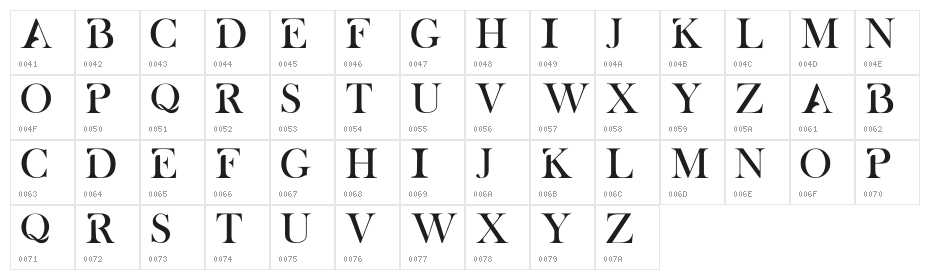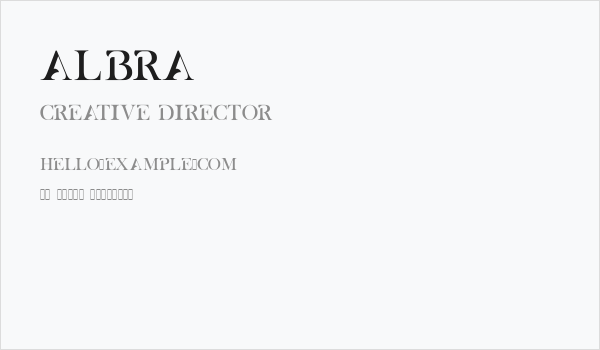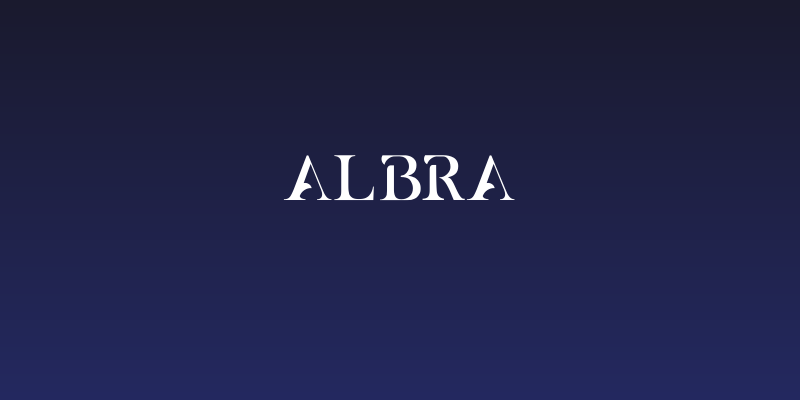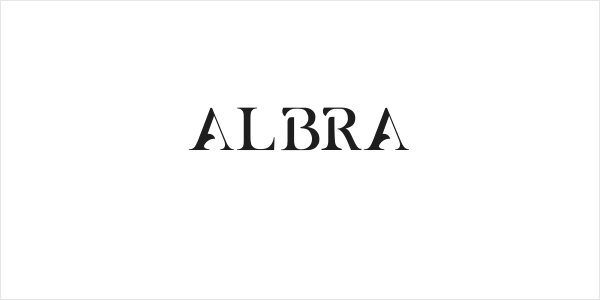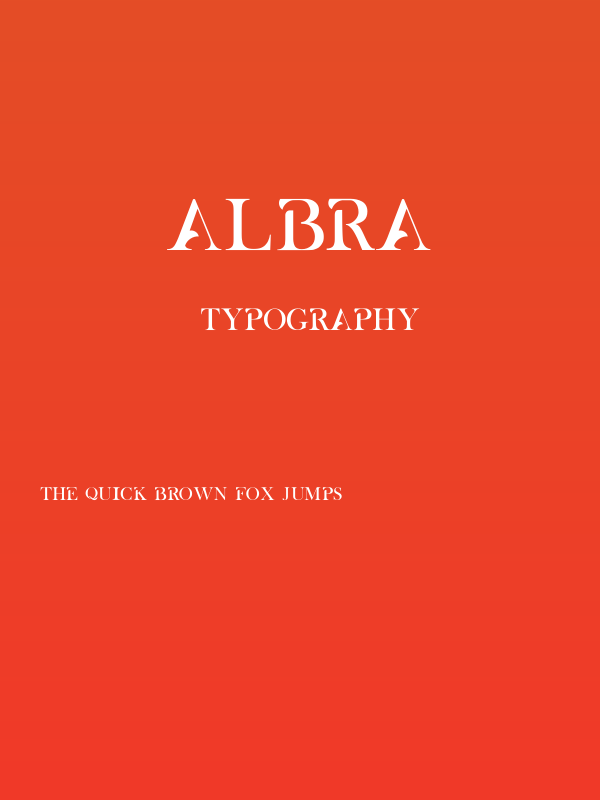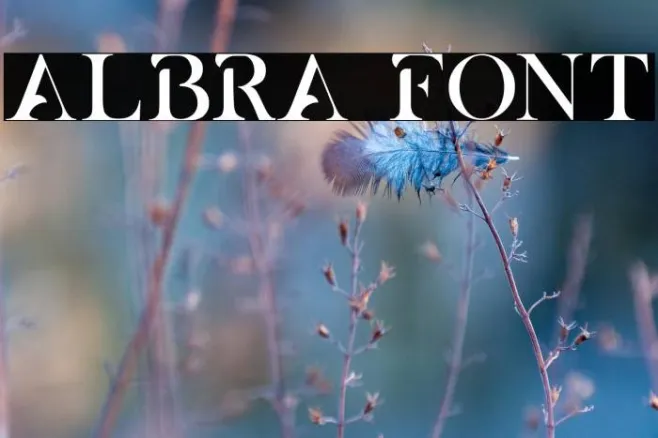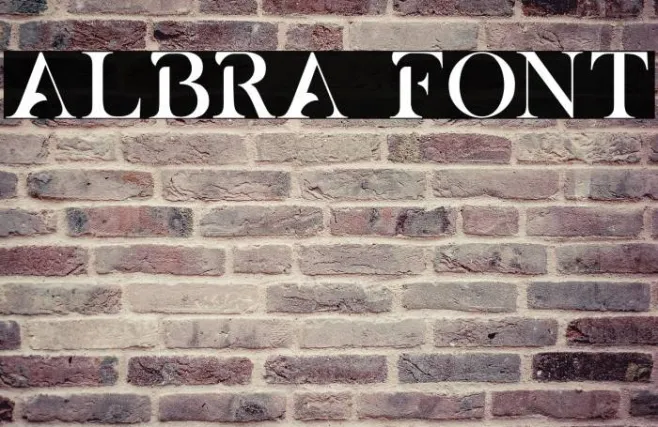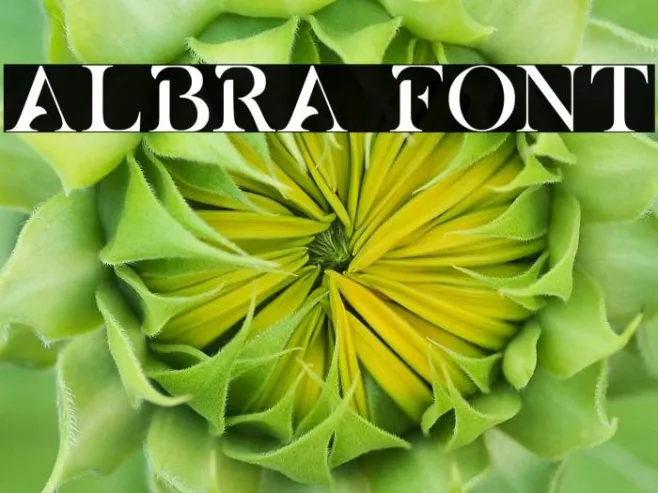
ALBRA Font
ALBRA Description
This font features a bold and striking design with high contrast between thick and thin strokes, giving it a dramatic and elegant appearance. The serifs are sharp and pronounced, adding a touch of sophistication and classic appeal. The overall structure is balanced, with each letterform exhibiting a sense of stability and strength. The uppercase letters are particularly dominant, making them ideal for headlines or titles. The font's style is reminiscent of traditional serif typefaces but with a modern twist, making it versatile for various design applications.